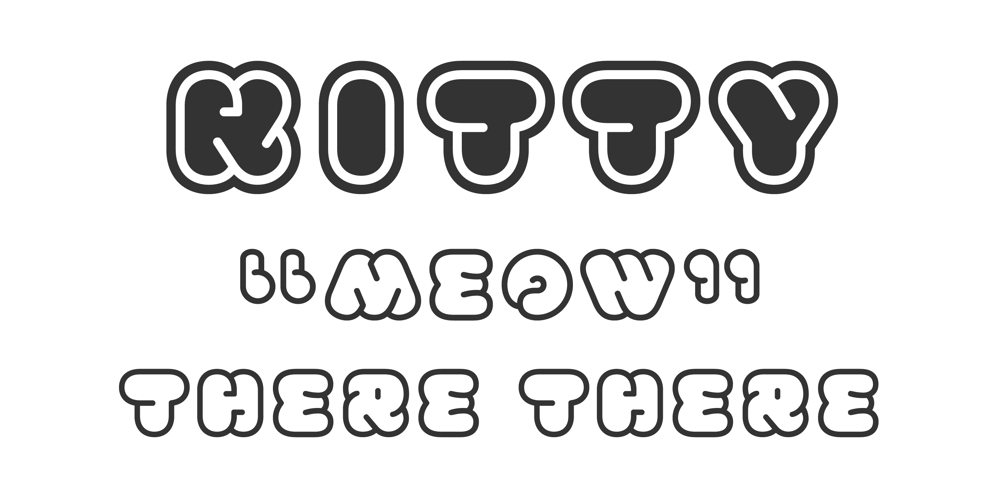
FS Kitty Font Family was designed by Jason Smith, Phil Garnham and published by Fontsmith. FS Kitty contains 5 styles and family package options. CuteFS Kitty is the type equivalent of Bagpuss: plump, cute, cuddly and not fond of exercise. So don’t go giving it a run-out on body copy; FS Kitty is an all-caps font made for showing off in posters and headlines, and on products, point-of sale and especially sweets.BlubberKitty had been quietly curled up in Phil Garnham’s sketchbook for a year before he brought it out to be brushed up. “It was in the mix as a basic form when I started thinking about FS Lola. It was a twisted, bubbly beauty – quite squishable and huggable. The working file was called Blubber.“At that time it was a basic construction of strokes. I created the ‘A’ first, purely as a shape to play with, not as type. I flipped it for ‘V’, and copied that for a ‘W’. I flipped the ‘W’ for an ‘M’… I thought, ‘This looks a bit wacky, but I like it,’ and just carried on. The most tricky characters were the ‘B’ ‘P’ and ‘R’. I must have drawn about 20 kinds of B for this, just to get it to fit.”Variety“When the regular weight of Kitty had been designed,” says Jason Smith, “it just felt like a natural progression to go on and explore how far we could go with it: Light, Solid, Headline, Shadow.”Phil Garnham thinks there’s still more to come. “There are some really individual characters in this font that I think have yet to be exploited: the Greek Omega symbol, the strange face in the ampersand.Like Bagpuss, Kitty has kept a low profile so far. “We know people are using Kitty. In fact, it was the first of any of our fonts that we sold on the day it was released. But I still haven’t seen it out there in the wild. It’s going to be a exciting moment.”